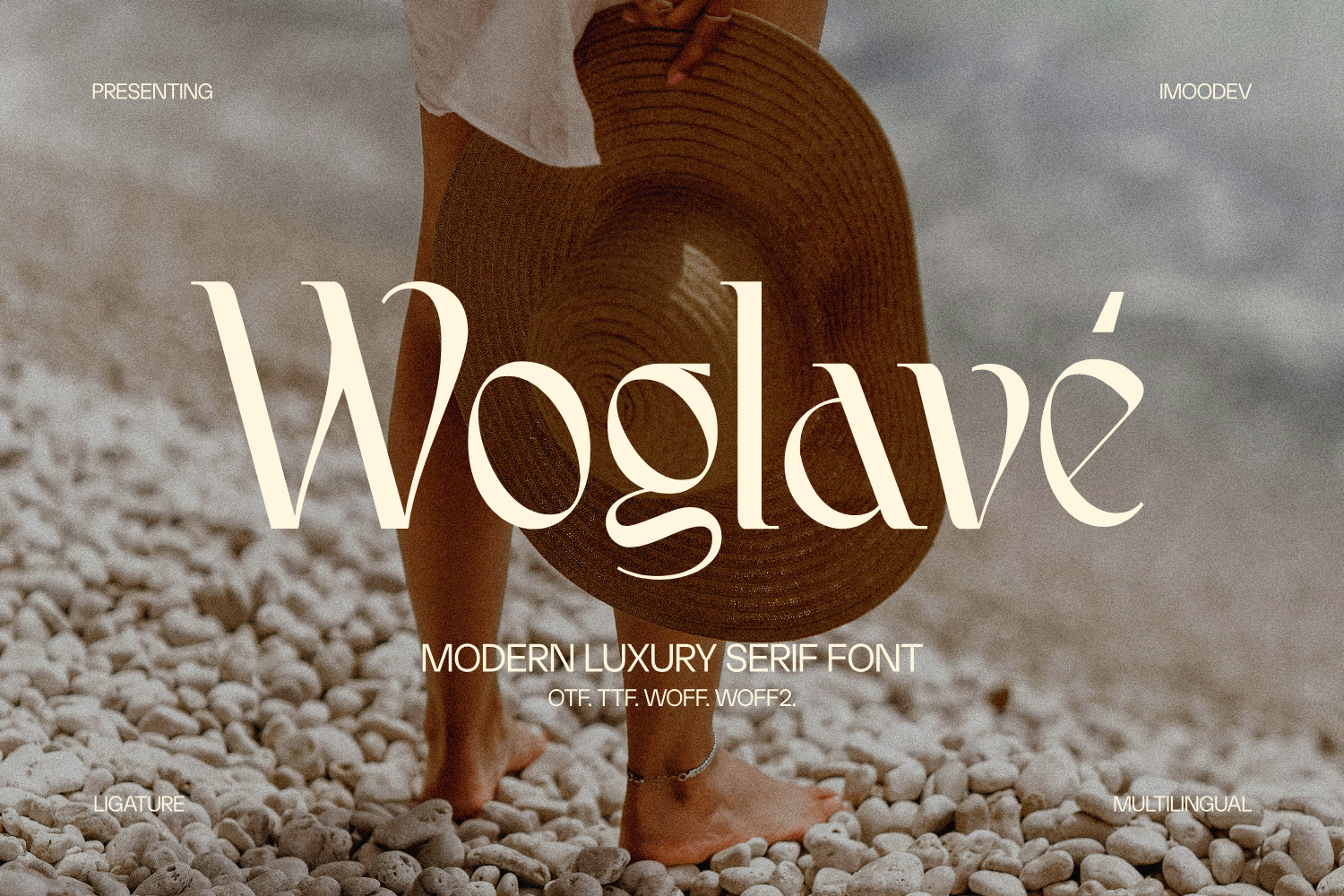
Woglave Elegant Modern Serif Font
Elevate your creative projects with Woglave, a premium display serif font designed to bring an elite sense of luxury, grace, and artistic flair to your typography. Marked by its dramatic stroke weight variation and fluid, expressive stems, Woglave seamlessly blends timeless editorial elegance with contemporary boutique aesthetics.